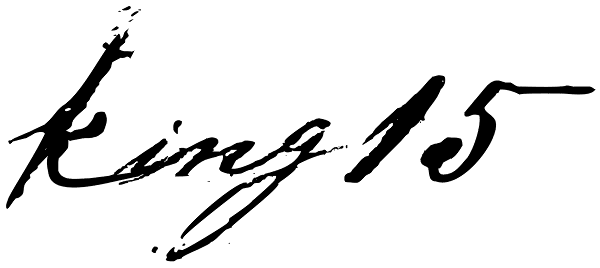
King15
King15 is a beautiful script font based on signatures dated back from hundreds of years. Its asymmetry and ink imperfections give it a strong and a truly unique character.